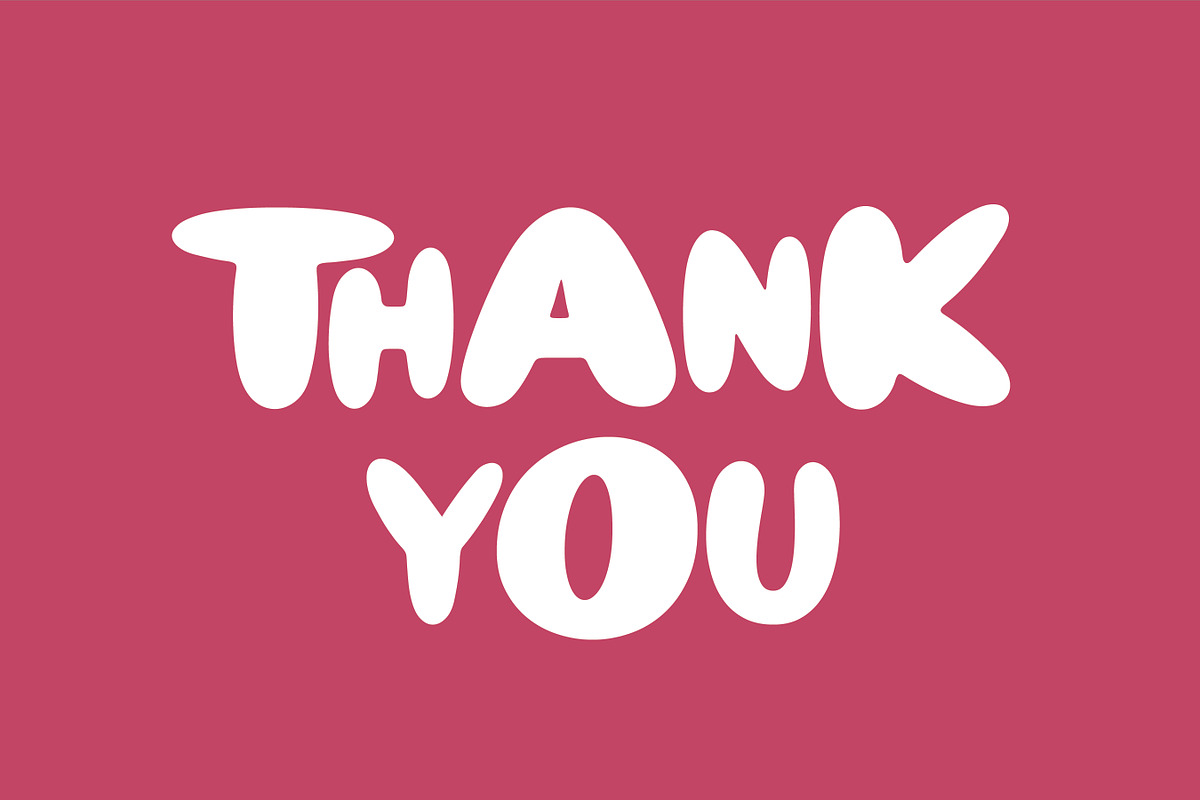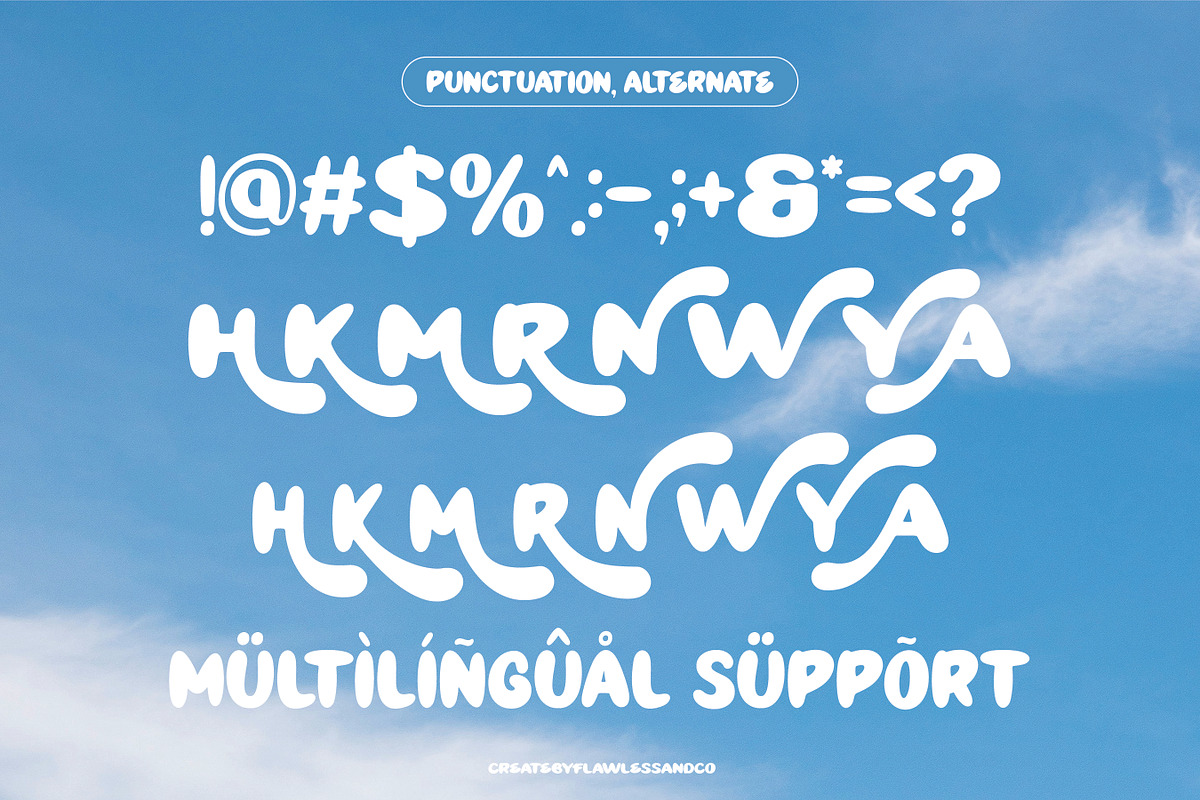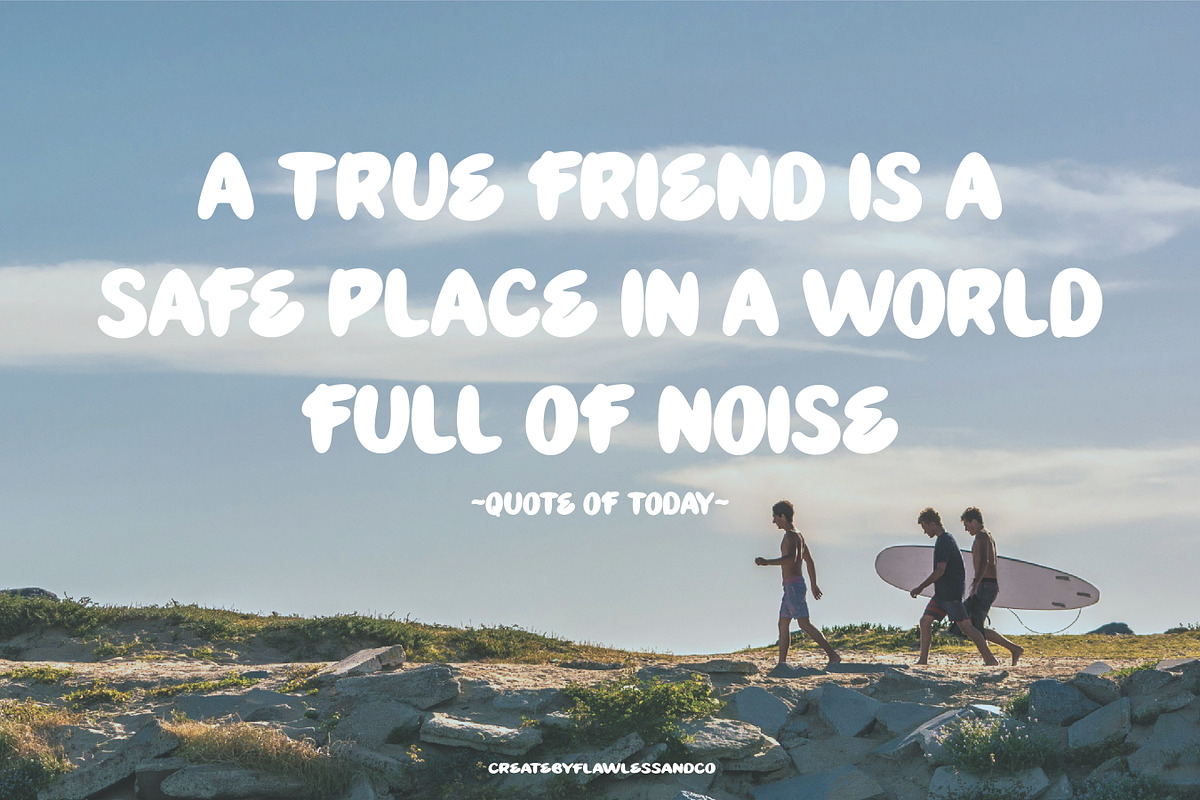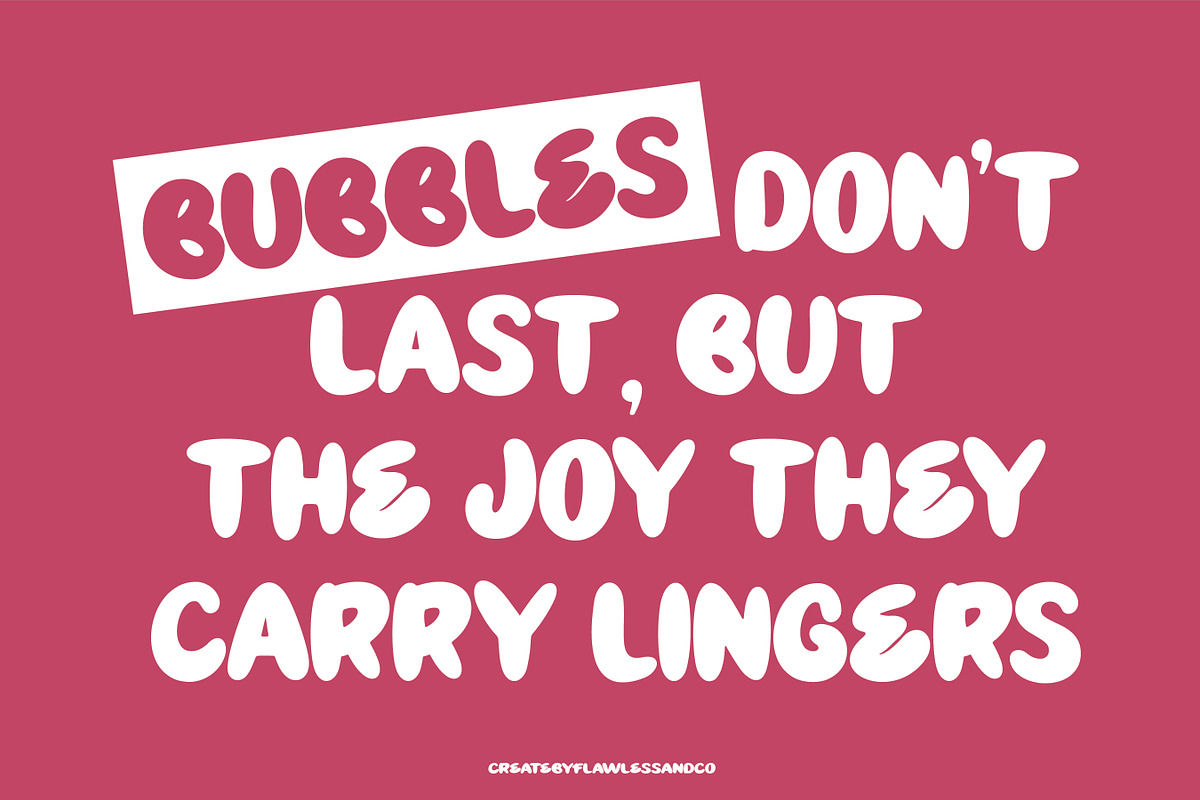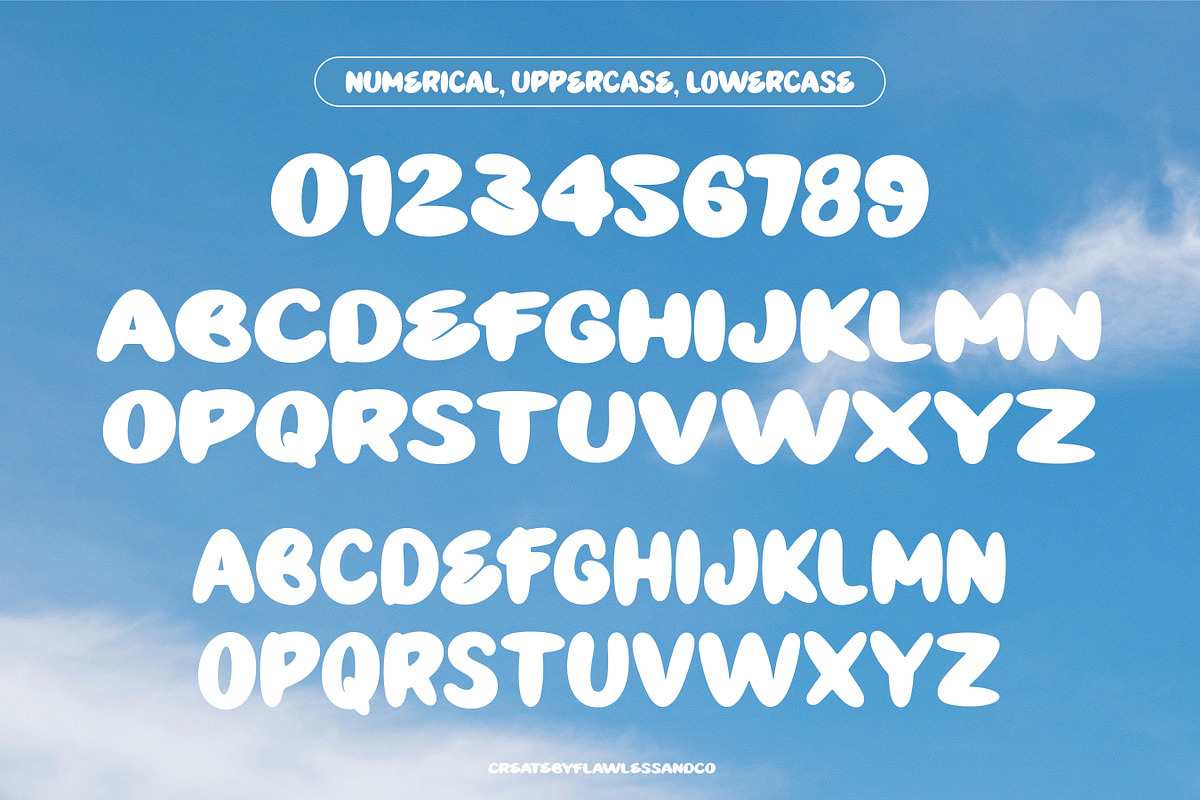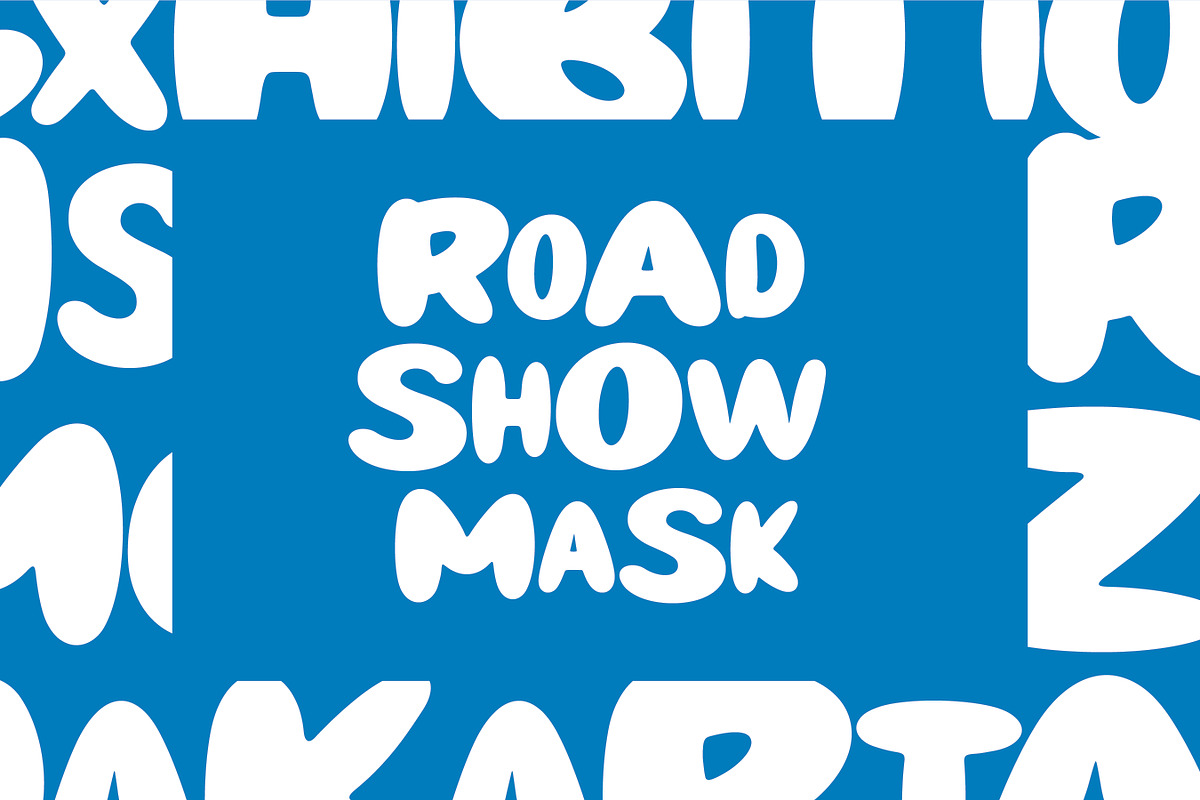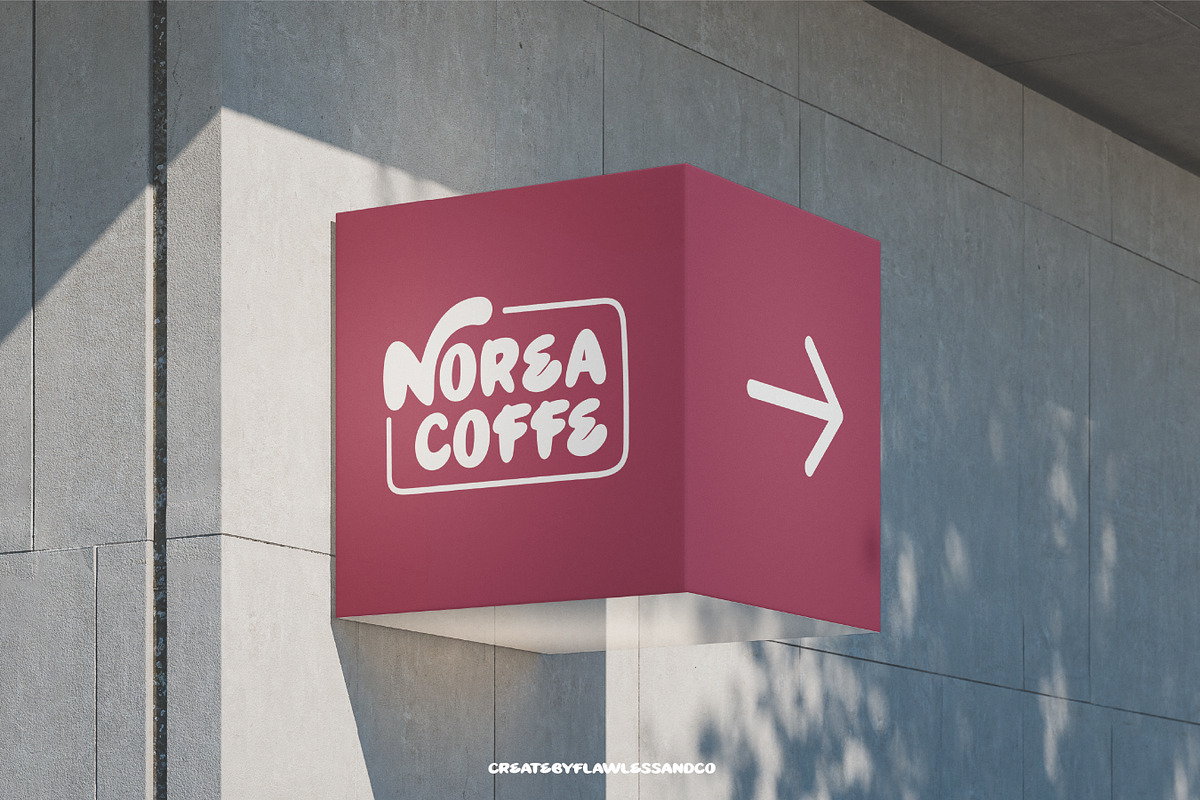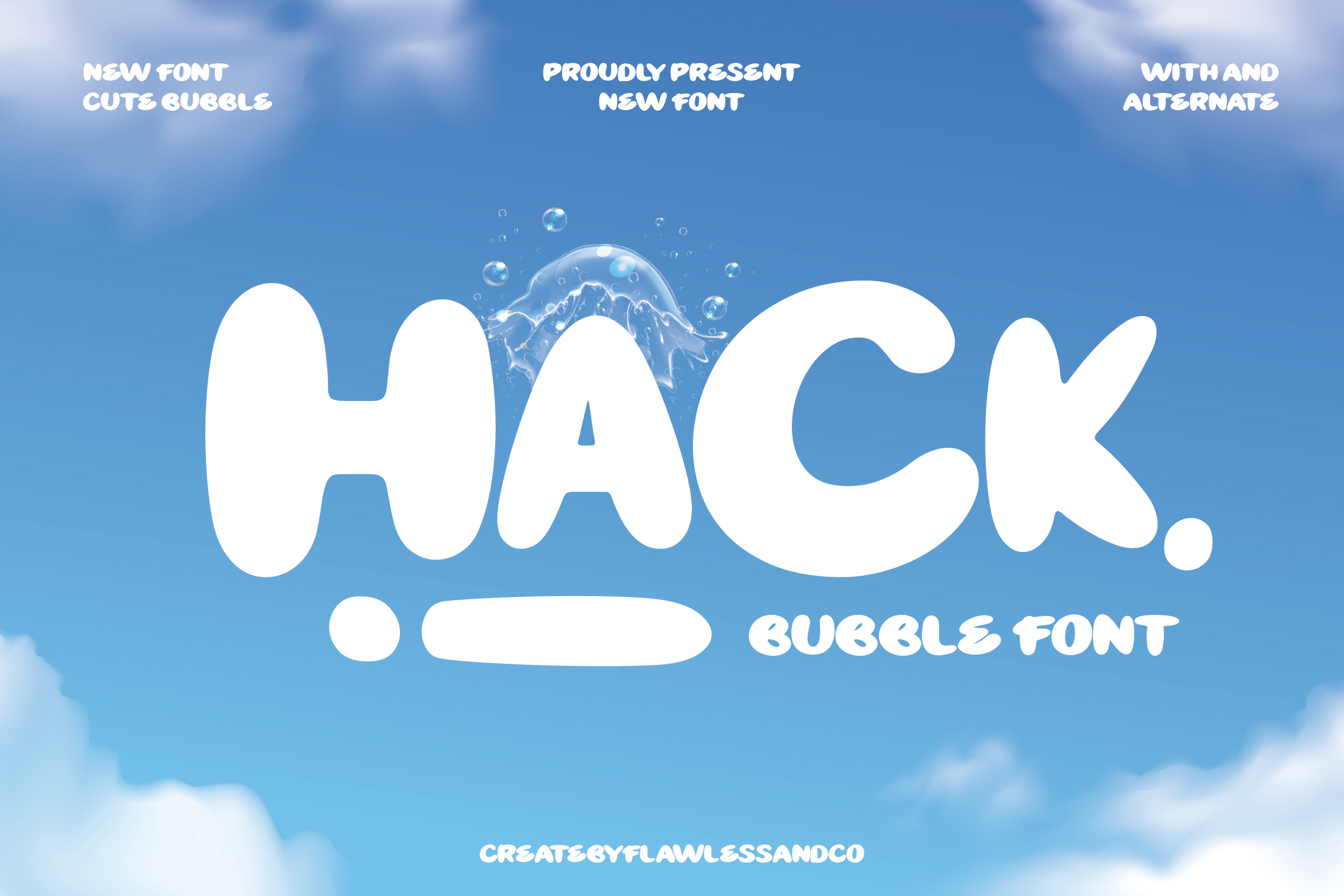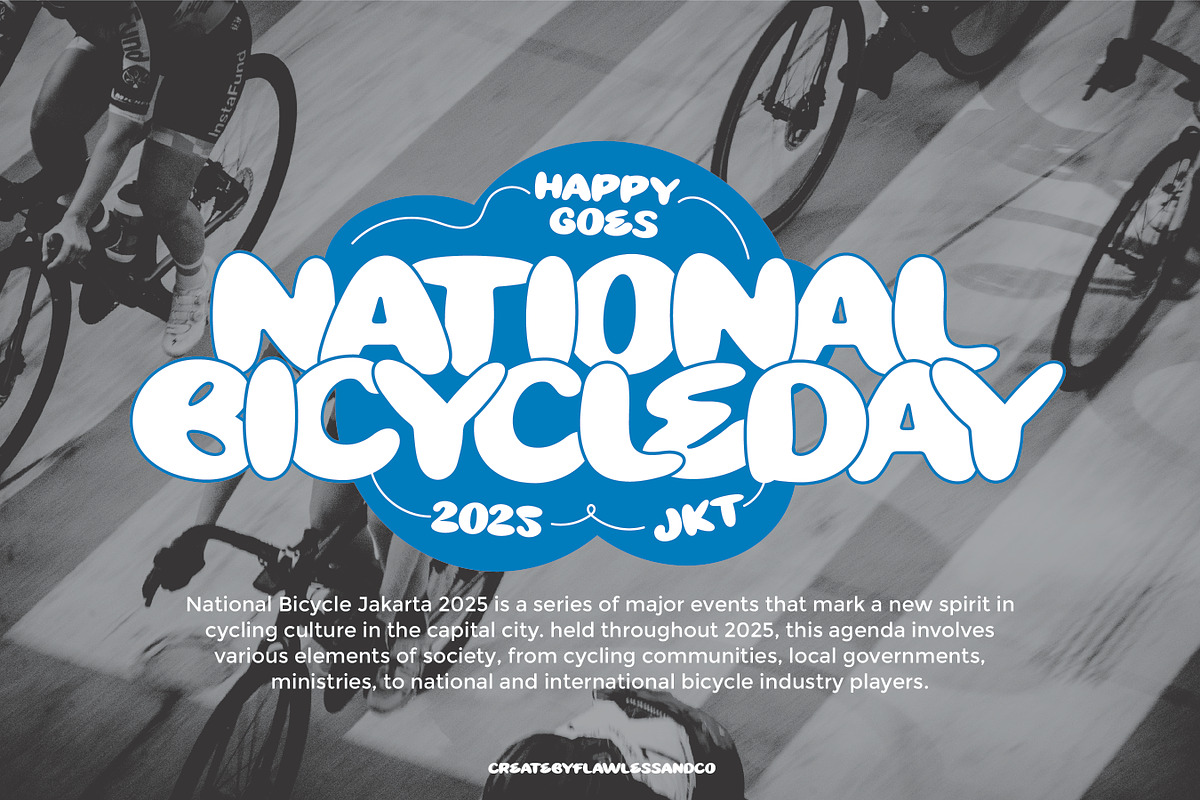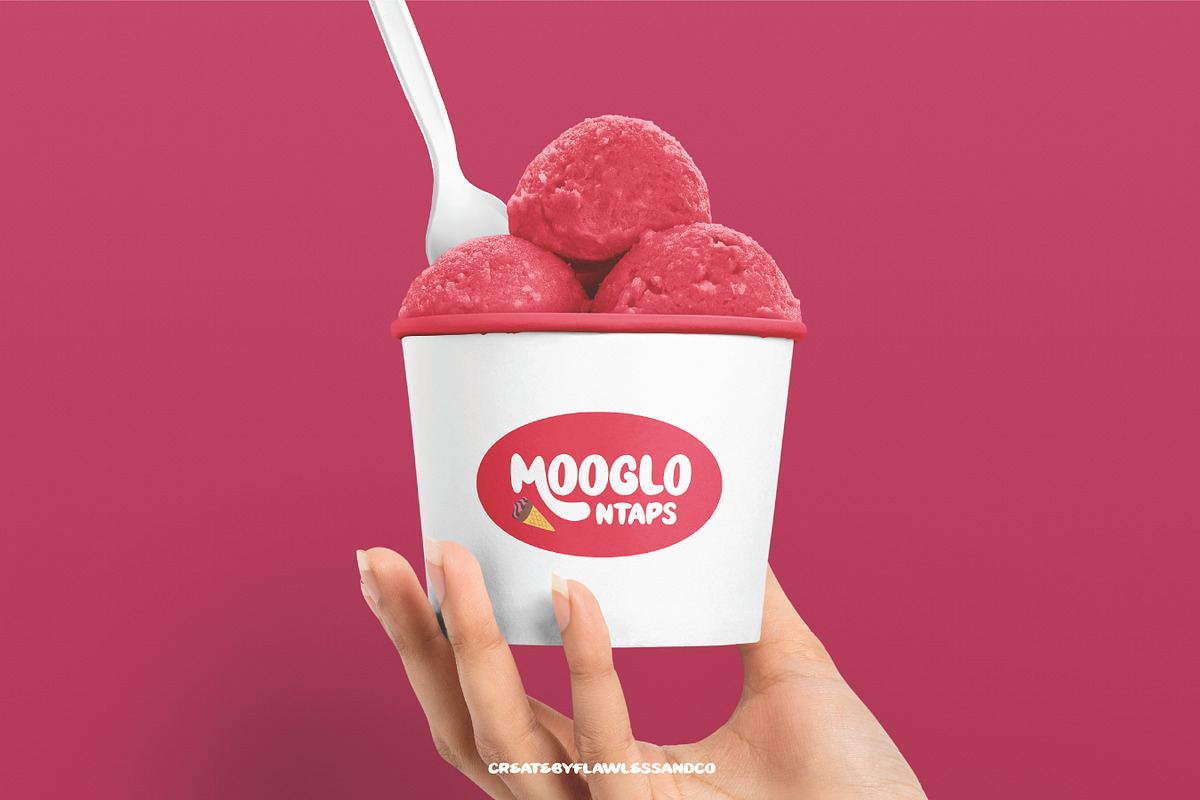
Hackbubble - Display Font
Hack Bubble - Display Font
Hack Bubble is a playful bubble display font full of personality, featuring rounded and bold letterforms that radiate a fun, modern, and friendly vibe. Its cheerful curves and balanced proportions make it perfect for creative projects that want to stand out while staying approachable. Whether for branding, product packaging, or social media designs, Hack Bubble brings a lively and eye-catching touch. It also works beautifully for posters, invitations, and promotional materials that need positive energy and strong visual appeal.
Who Should Use Hack Bubble?
Hack Bubble is perfect for creatives, designers, and brands who want to inject fun, friendliness, and bold personality into their visual projects. It’s ideal for anyone looking to make designs feel approachable yet striking, from playful branding to standout promotional materials.
A Must-Have Font for Brand and Logo Creators and Designers
Hack Bubble is an essential choice for brand and logo creators, graphic designers, and visual storytellers who want to make a lasting impression. Its bold yet friendly style helps designs stand out, making it perfect for crafting memorable brand identities, eye-catching logos, and creative visuals that connect with audiences.
Why Choose Hack Bubble for Brand and Logo Projects?
Hack Bubble combines playful charm with bold impact, making it perfect for creating brand and logo designs that are both memorable and approachable. Its bubbly letterforms add personality and uniqueness, ensuring your branding stands out while still feeling friendly and engaging. Whether for modern businesses, creative products, or fun campaigns, Hack Bubble delivers a distinctive look that captures attention and builds brand recognition.
Suitable For:
- Brand identities and logo design with a playful, bold style
- Product packaging for snacks, beverages, or fun merchandise
- Social media graphics that need an eye-catching, friendly vibe
- Event posters, banners, and creative advertising
- Children’s books, toys, and educational materials
- Custom apparel, stickers, and stationery designs